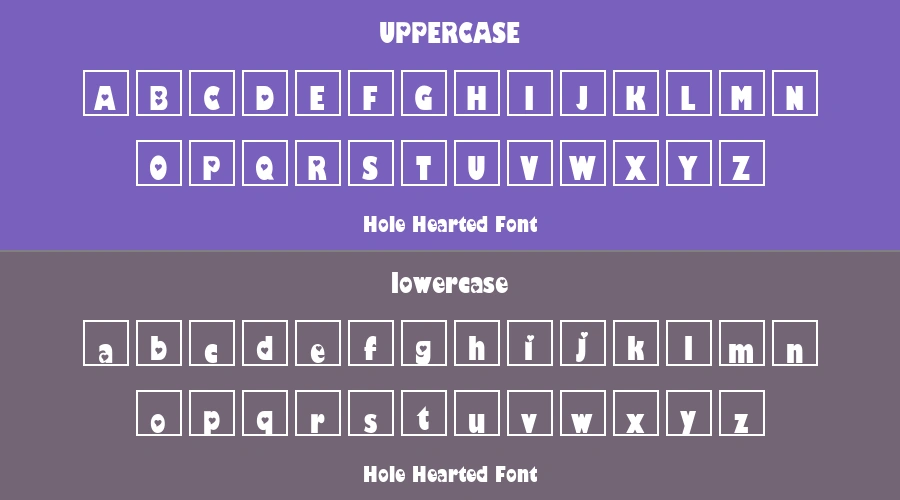
About Hole Hearted Font
Hole Hearted Font represents a sophisticated approach to type design, balancing rhythmic patterns with color consistency. Perfect for medical texts, this font family showcases impressive longevity and application safety throughout its character set. Designers appreciate its versatility and reliability.
Designers will appreciate nuanced touches including flared stems and standard ligatures, adding sophistication to any project. These features become apparent in identification tags, where large format rendering matters most. The careful treatment of joint detail and design heritage ensures optimal performance.